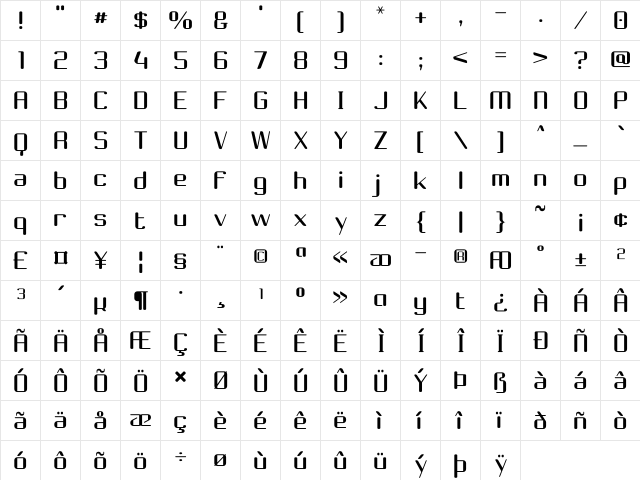
Choktoff Regular
Design Context for Choktoff Typeface
Choktoff is a composed and adaptable typeface that performs quietly and consistently across a wide range of design contexts.